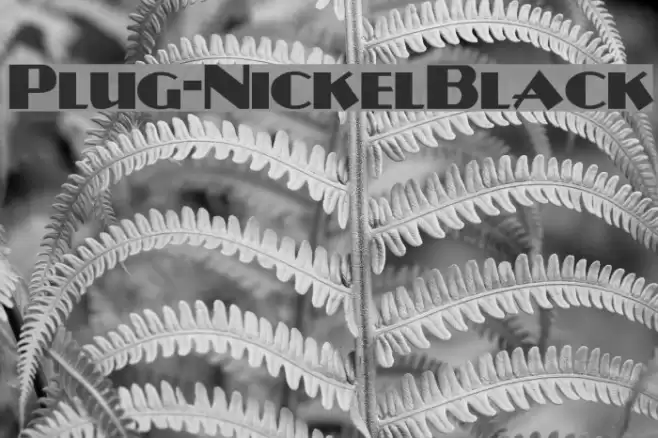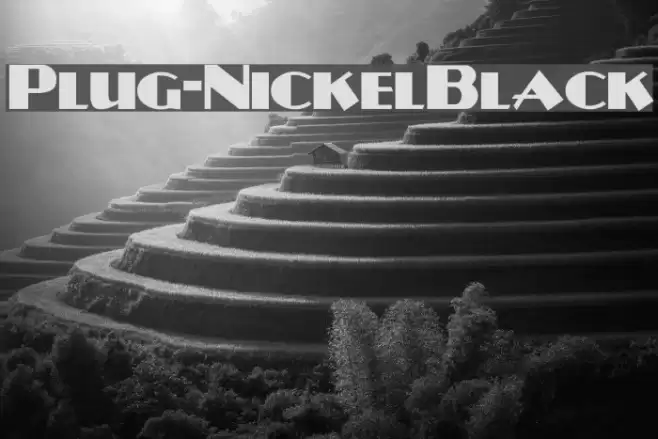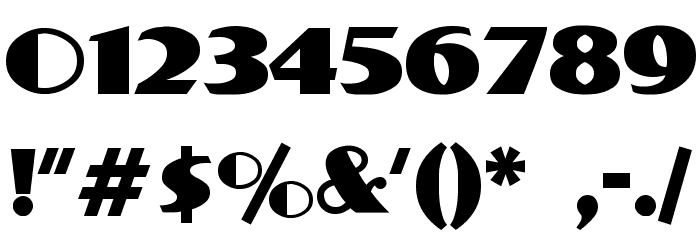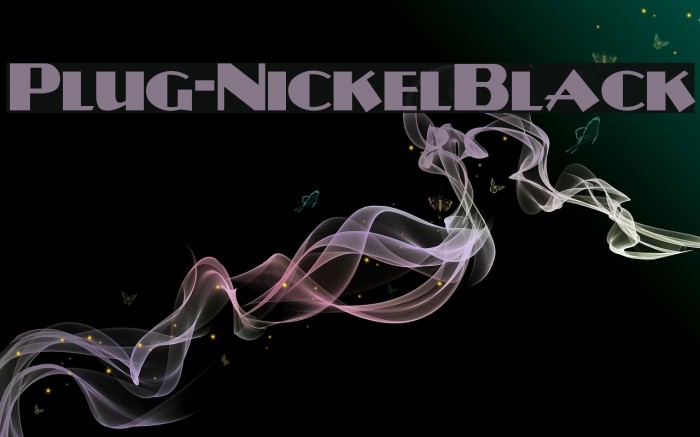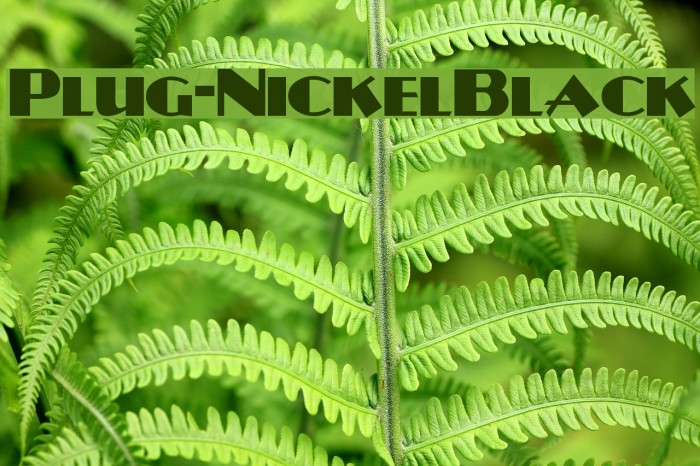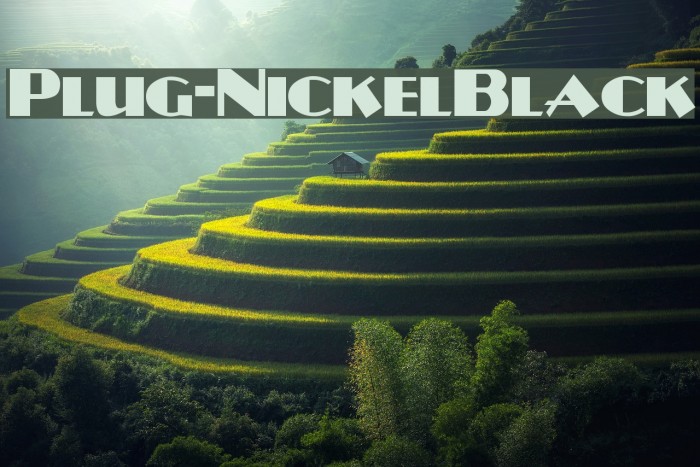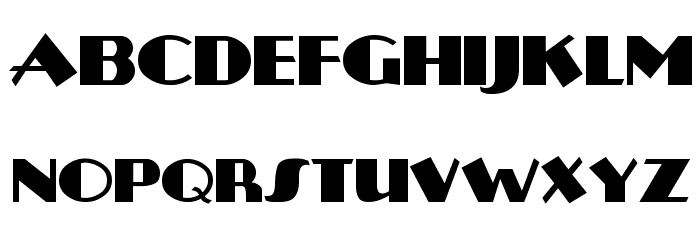
Plug-NickelBlack Font
Plug-NickelBlack Description
This font features a bold and striking design, characterized by its thick, geometric letterforms and sharp angles. The uppercase letters are particularly distinctive, with unique cuts and curves that give them a modern and edgy appearance. The lowercase letters maintain a consistent style, ensuring readability while still offering a touch of flair. The numerals are bold and clear, making them suitable for attention-grabbing displays. Special characters are designed with the same boldness, ensuring they stand out in any context. Overall, this font exudes a sense of strength and modernity, making it ideal for impactful headlines and branding.
A bold, geometric font with sharp angles and modern flair from Uncategorized fonts.
- Proposed Projects: Ideal for branding, headlines, posters, and any project requiring a strong visual impact.